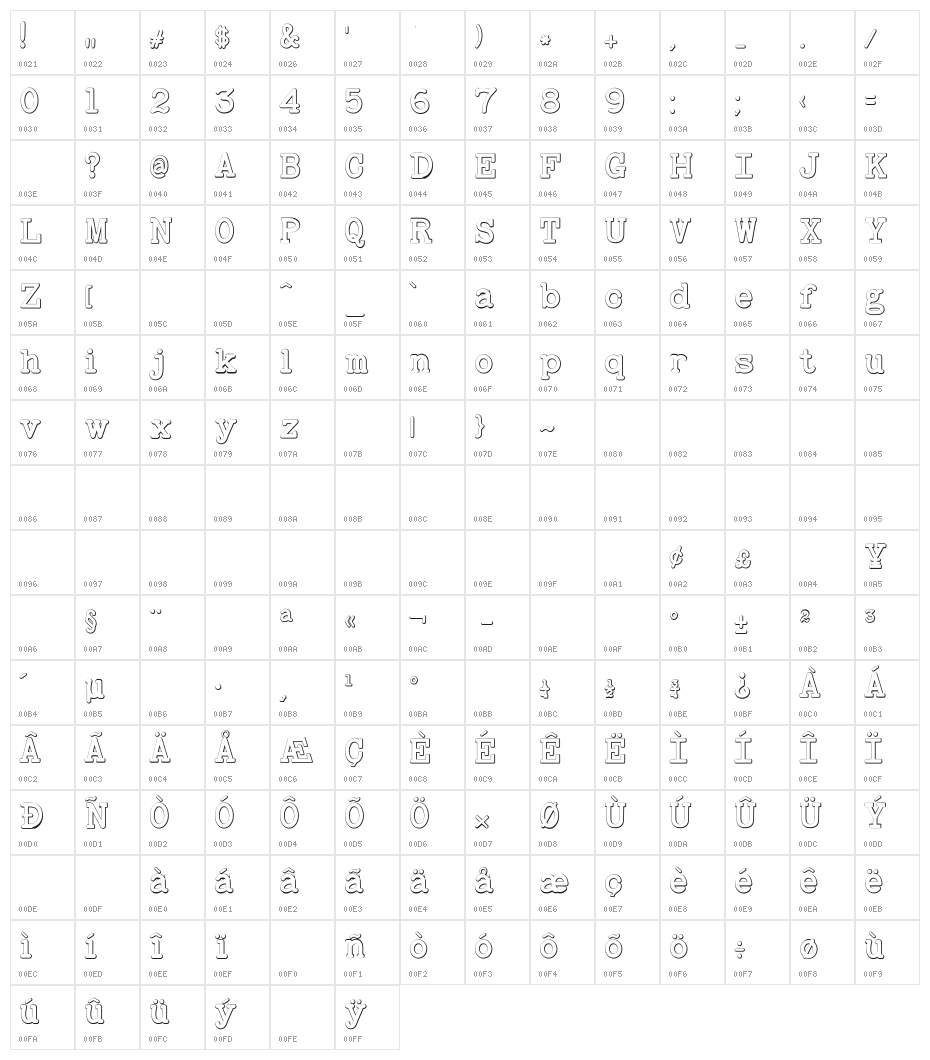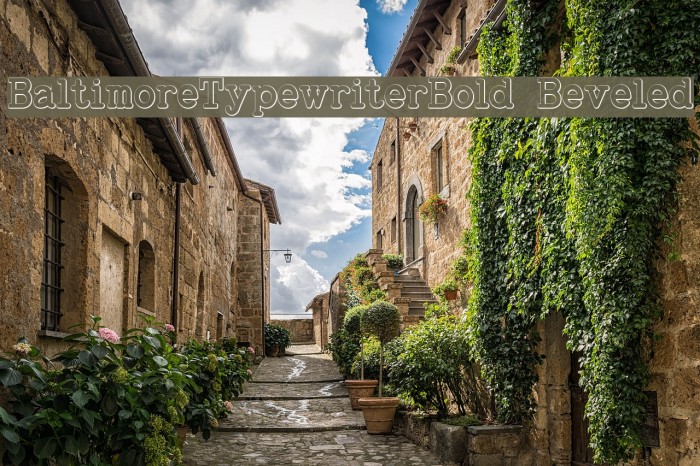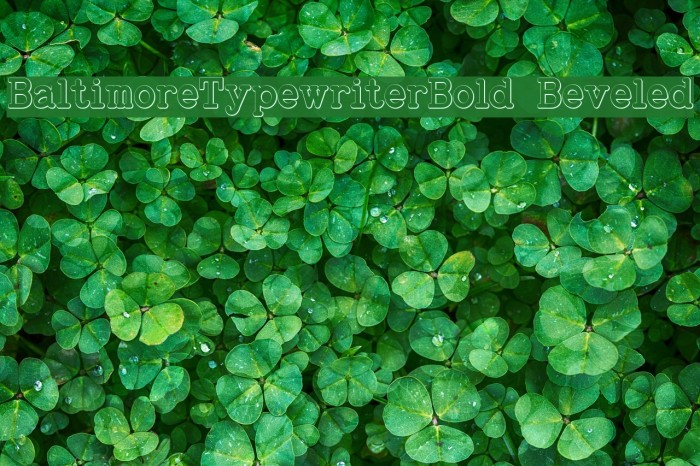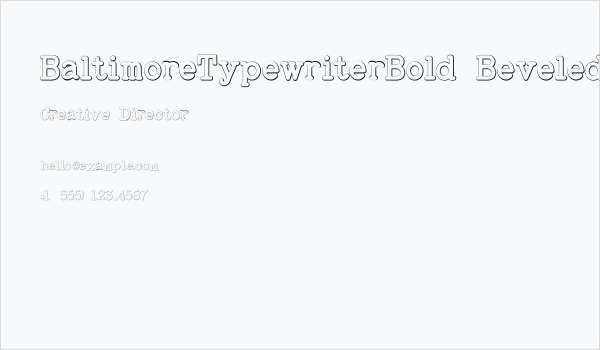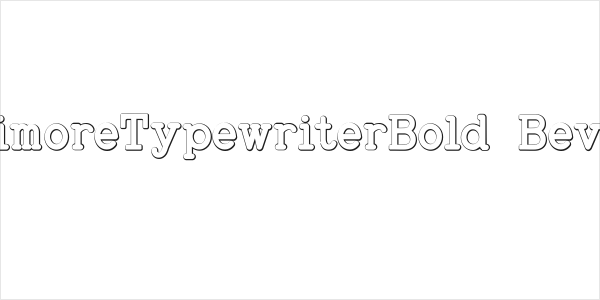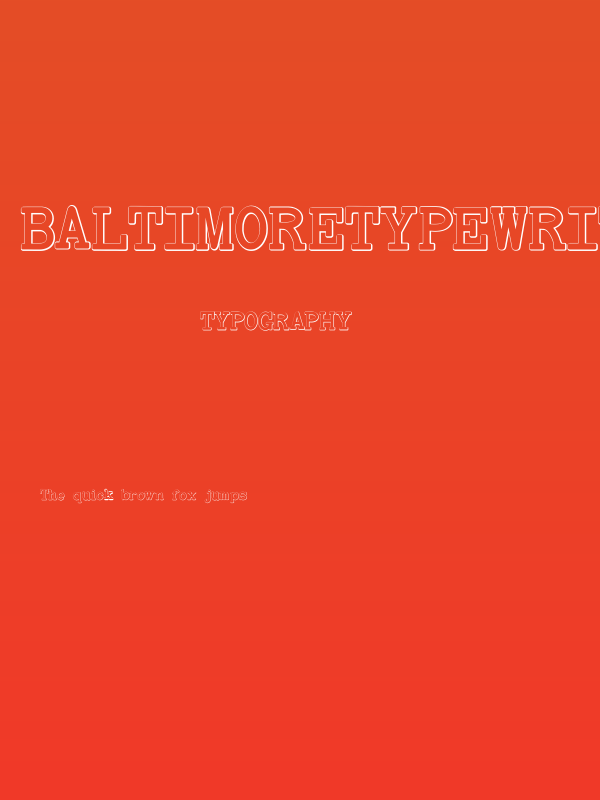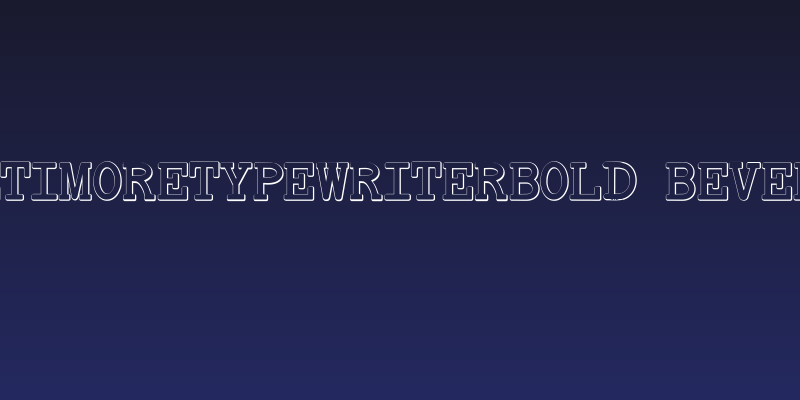
BaltimoreTypewriterBold Beveled Font
BaltimoreTypewriterBold Beveled Description
This font features a bold, beveled style reminiscent of classic typewriter fonts with a modern twist. The characters are robust with a strong presence, making them ideal for impactful designs. The beveled edges add a unique depth and dimension, enhancing the visual appeal. Uppercase and lowercase letters maintain a consistent weight, and the numerals are clear and easily distinguishable. The special characters are well-integrated, ensuring versatility in various design contexts.
Overall StyleVintage
Proposed ProjectsIdeal for vintage-themed posters, branding materials, headlines, and any design requiring a bold, distinctive typeface.